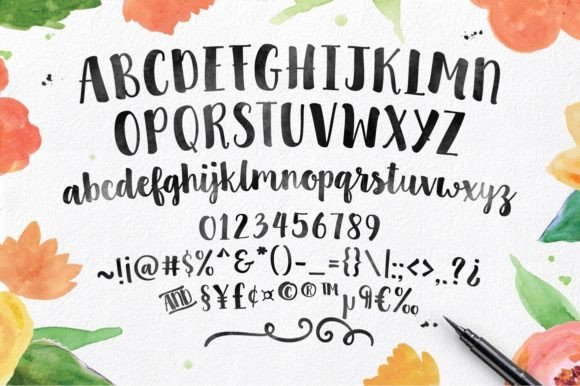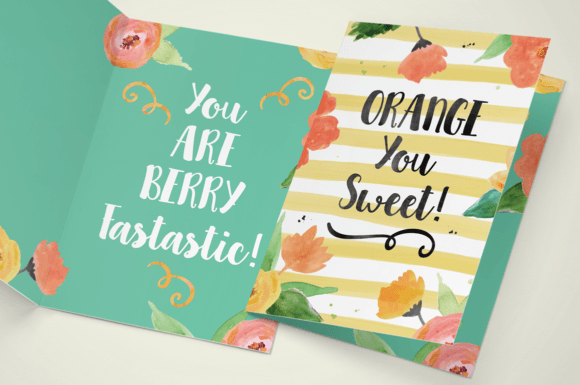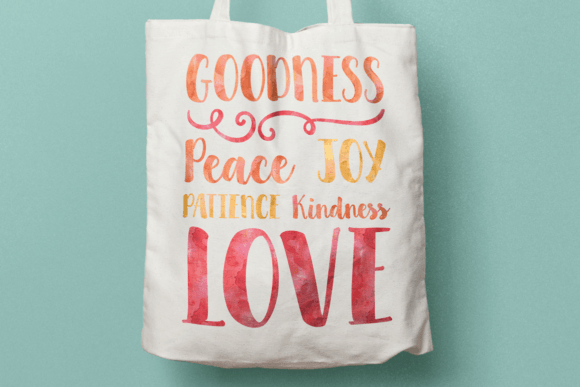
Clementine Font
Introducing Clementine Script, a tangy and hand-crafted typeface that adds a burst of flavor to your designs. This versatile font is perfect for a variety of uses, whether you choose to use it in its natural, flowing form or in all caps for a particularly sweet and bold impact. Inspired and designed with a large chisel felt marker, Clementine Script brings bold characters that make your logo stand out and adds a vibrant touch to signage, posters, logos, headlines, and more!
Clementine Script’s multi-purpose design allows it to adapt seamlessly to different contexts. The flowing script imparts a sense of organic energy, while switching to all caps gives it a bold and commanding presence. This flexibility makes it suitable for a wide range of creative projects, from expressive signage to eye-catching posters and impactful logos.
The inspiration drawn from a large chisel felt marker gives Clementine Script a distinctive and authentic appearance. The bold strokes and dynamic lines convey a sense of hand-crafted artistry, adding character and uniqueness to your text.
Moreover, the font’s PUA encoding ensures ease of access to all the glyphs and swashes. This feature provides you with the freedom to explore and incorporate various design elements effortlessly, enhancing your ability to customize and personalize your projects.
Picture Clementine Script enhancing the visual appeal of your signage, making your posters pop, or creating a bold and memorable logo that stands the test of time. Whether you’re working on digital designs or print materials, Clementine Script is designed to make a statement.
In essence, Clementine Script is not just a font; it’s a design tool that adds zest and vibrancy to your creative projects. Let it be the tangy and hand-crafted touch that elevates your work, leaving a lasting impression on your audience.